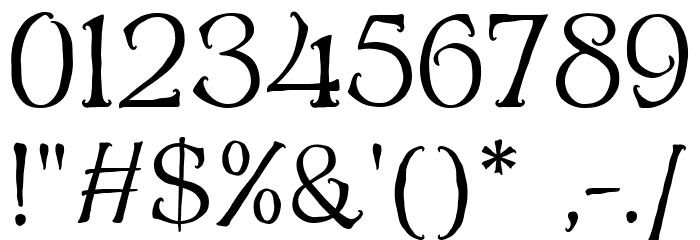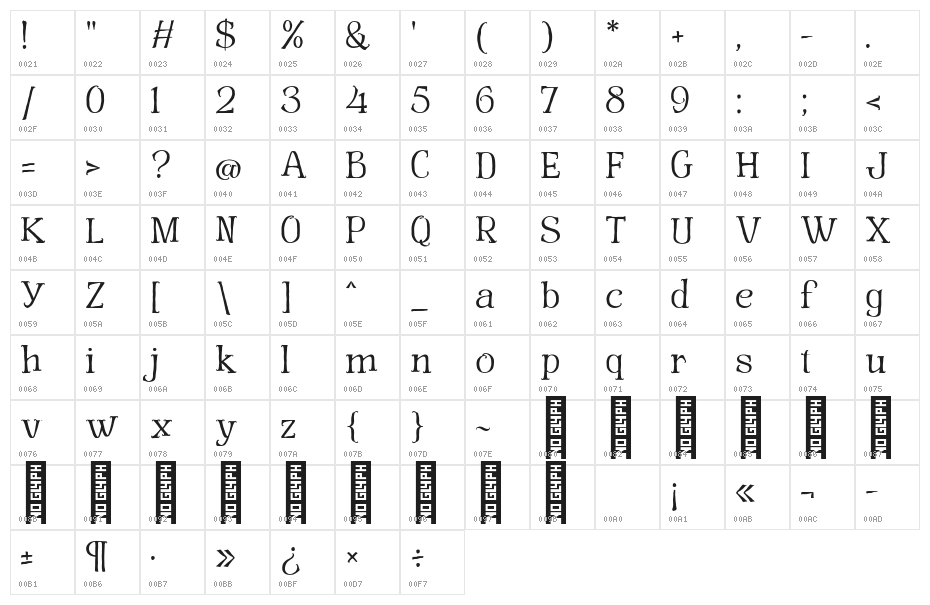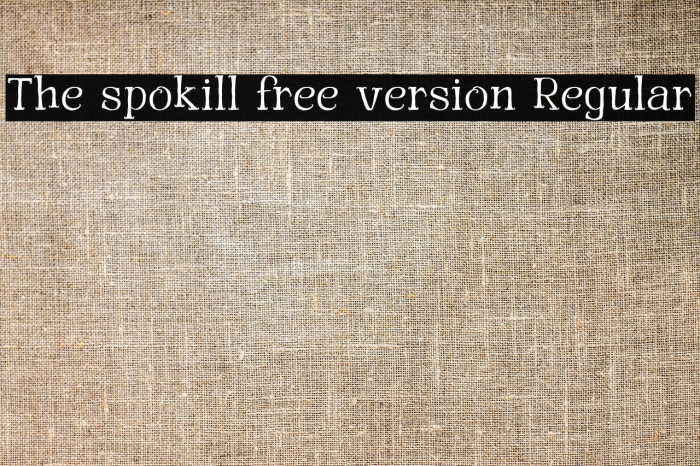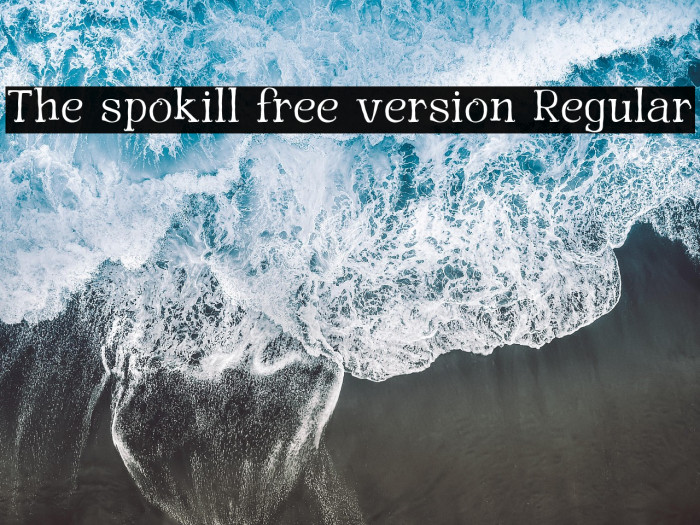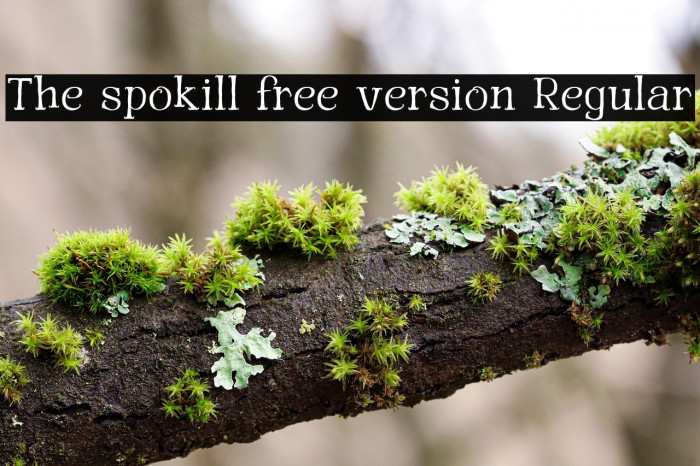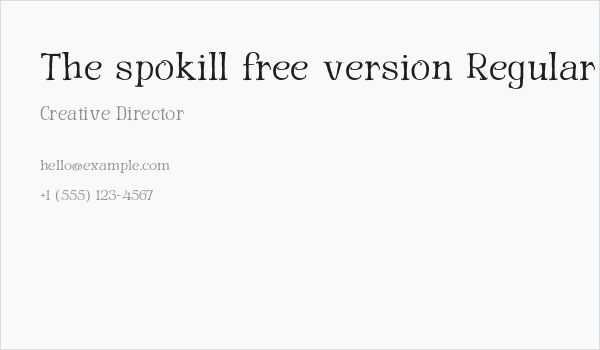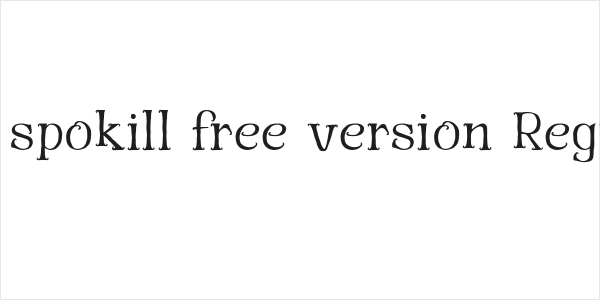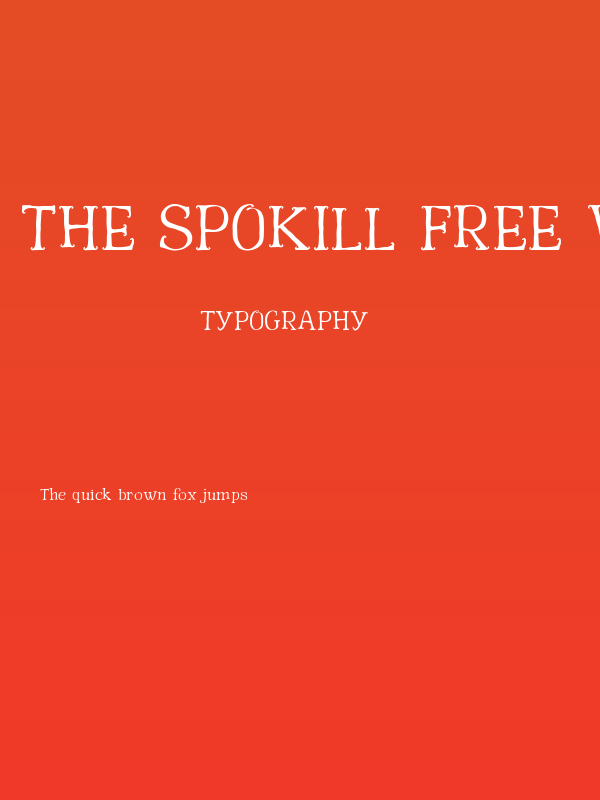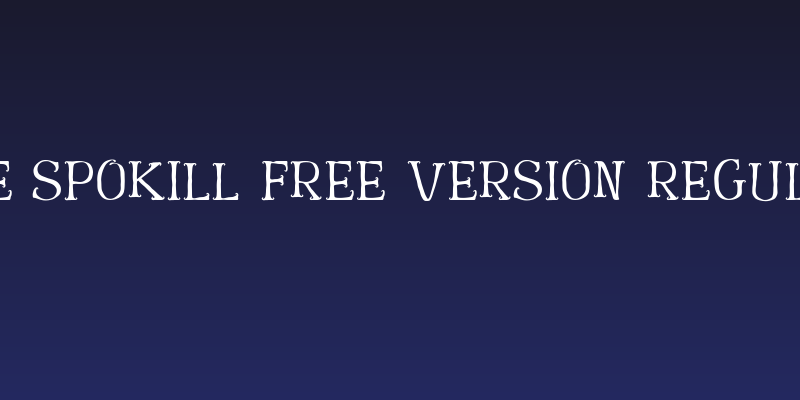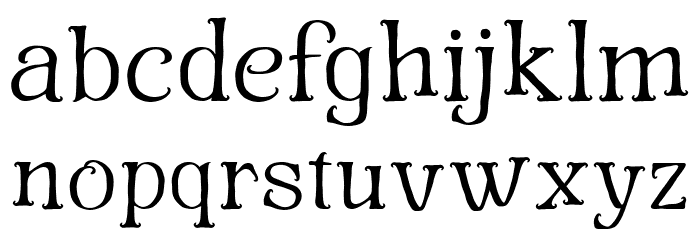
The spokill free version Regular Font
This font features a distinctive, hand-drawn appearance with uneven strokes and a slightly distressed look. The characters have a playful yet vintage feel, with irregular edges and varying line thickness that give it a unique, organic style. The uppercase letters are bold and prominent, while the lowercase letters maintain a consistent flow, enhancing readability. Numbers and special characters follow the same design ethos, adding to the font's cohesive aesthetic. Its quirky and artistic nature makes it stand out, perfect for projects that require a touch of creativity and individuality.
| Proposed Projects | Ideal for creative projects such as posters, invitations, branding, and packaging that require a unique and artistic touch. |